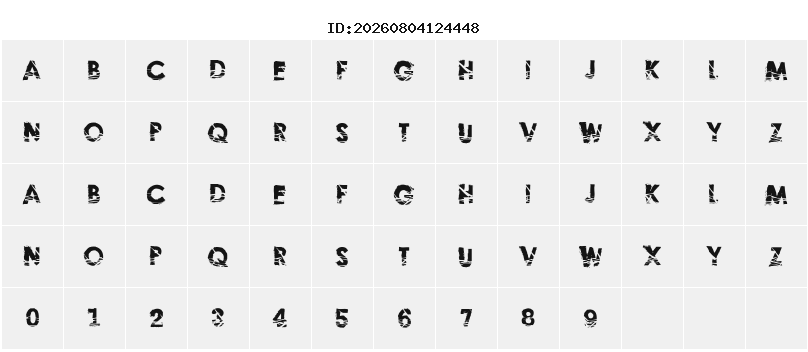
• Font Name: No Hard Evidence
• Designer: Chris Vile
• Manufacturer: Font Monger
• Description: No Hard Evidence is a font by Font Monger, designed by Chris Vile in 2014.
About No Hard Evidence.ttf
No Hard Evidence.ttf is a modern, elegant sans-serif font designed for ultimate readability and visual harmony. Perfect for branding, headlines, web design, and print materials.